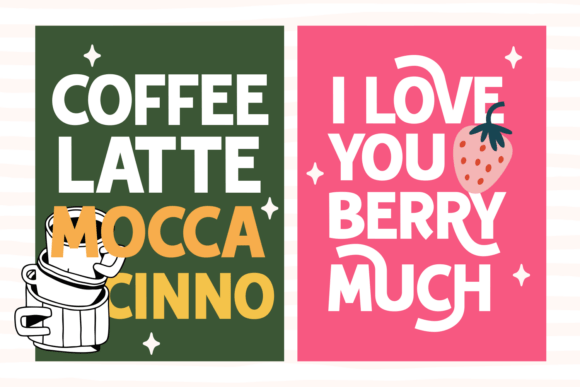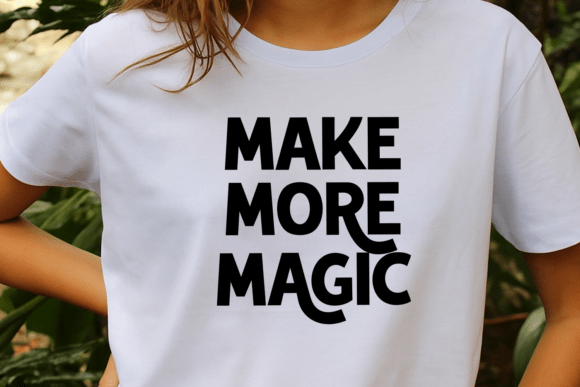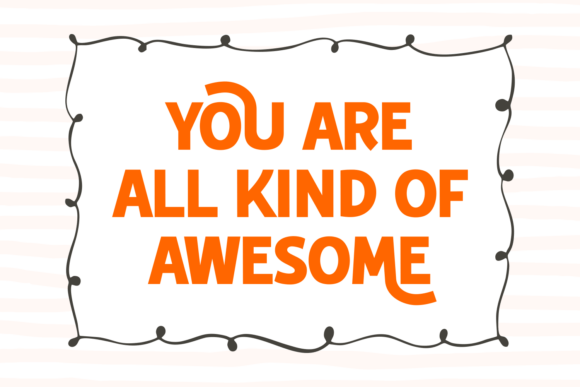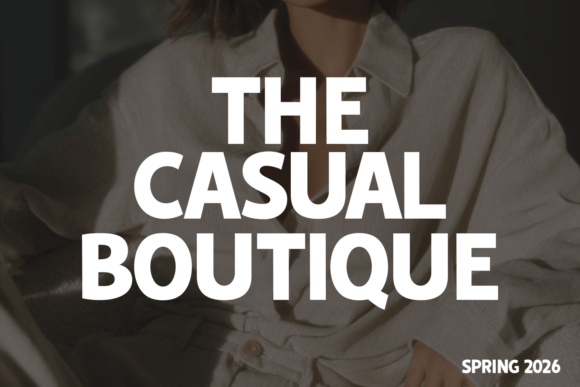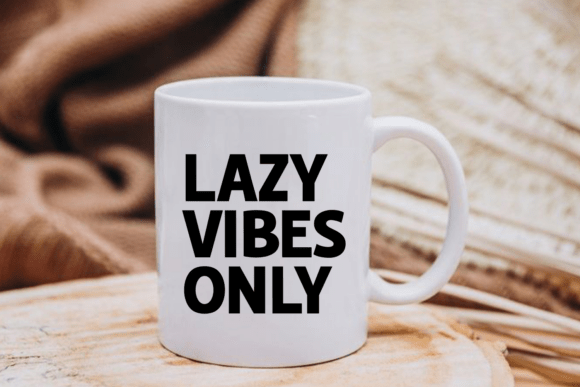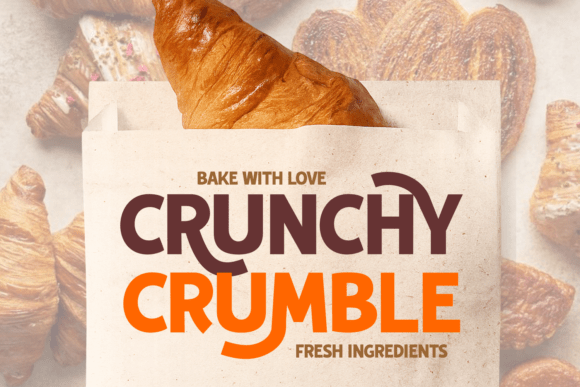
Welcome to the Captivating World of Dreamy Magical Font
Imagine a world where typography comes alive with a sense of wonder and magic. A world where every letter and glyph is a masterpiece of whimsy and delight. Welcome to the enchanting realm of Dreamy Magical, the display typeface that embodies the essence of joyful creativity. In this article, we’ll explore the fascinating world of Dreamy Magical, a font that will transport you to a land of fantasy and fun.
The Birth of Dreamy Magical
Dreamy Magical is more than just a font – it’s an experience. Designed with harmonious vibrancy and child-like wonder in mind, this enigmatic display typeface is the brainchild of meticulous craftsmanship and creative genius. Every line, every curve, and every shape has been carefully crafted to evoke a sense of magic and awe. The result is a font that is both dazzlingly beautiful and infectiously positive.
Design Features of Dreamy Magical
So, what makes Dreamy Magical so special? For starters, the font boasts strong letterforms that prioritize exceptional readability. But that’s not all – each glyph is also infused with playful details that add a touch of whimsy to any design. The ebullient shapes, gentle curves, and spirited anatomy of Dreamy Magical come together to create a truly captivating performance. Whether you’re a designer, crafter, or simply a lover of all things typography, Dreamy Magical is sure to captivate and inspire.
The Art of Storytelling with Dreamy Magical
Typography is more than just a means of communication – it’s an art form. And with Dreamy Magical, the possibilities are endless. Imagine crafting a storybook with a font that brings the narrative to life. Envision a brand identity that radiates warmth, friendliness, and approachability. With Dreamy Magical, you can create a world of wonder and enchantment that draws your audience in and refuses to let go.
Applications of Dreamy Magical
So, what can you create with Dreamy Magical? The answer is – anything! From branding and advertising to packaging and editorial design, this versatile font is perfect for any project that requires a dash of magic and whimsy. Here are just a few ideas to get you started:
- Create a show-stopping book cover or title page that sets the tone for a fantastical story.
- Design a whimsical brand identity that stands out from the crowd and captures the hearts of your audience.
- Craft eye-catching packaging that adds a touch of wonder to the everyday.
- Develop a captivating editorial design that brings a sense of joy and magic to your readers.
Why Choose Dreamy Magical?
In a world of typography, what sets Dreamy Magical apart? Here are just a few reasons why designers and crafters are falling in love with this enchanting font:
- Unique Allure: Each glyph is meticulously designed to emanate a unique charm that’s sure to captivate your audience.
- Exceptional Readability: Strong letterforms ensure that your message is conveyed with clarity and precision.
- Infectious Positivity: Dreamy Magical radiates warmth, friendliness, and approachability – perfect for brands that want to connect with their audience.
- Playful Details: Whimsical touches add a dash of fun and fantasy to any design.
In conclusion, Dreamy Magical is more than just a font – it’s a gateway to a world of wonder and enchantment. With its harmonious vibrancy, child-like wonder, and meticulous design, this captivating display typeface is sure to inspire designers, crafters, and anyone who dares to dream big. So why settle for ordinary typography when you can infuse your creative expressions with a dollop of fantasy, fun, and the irresistible charm that is Dreamy Magical?
Welcome to the captivating world of Dreamy Magical. Let the magic begin!